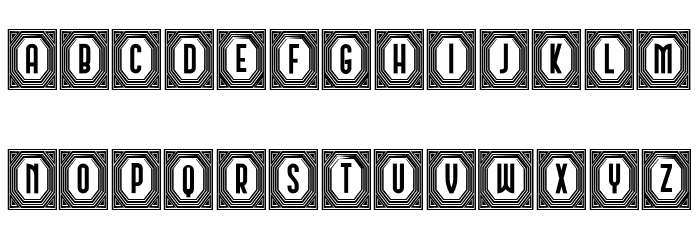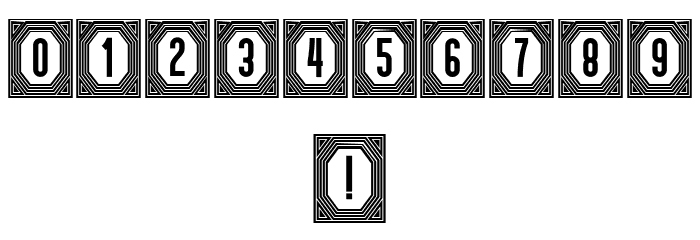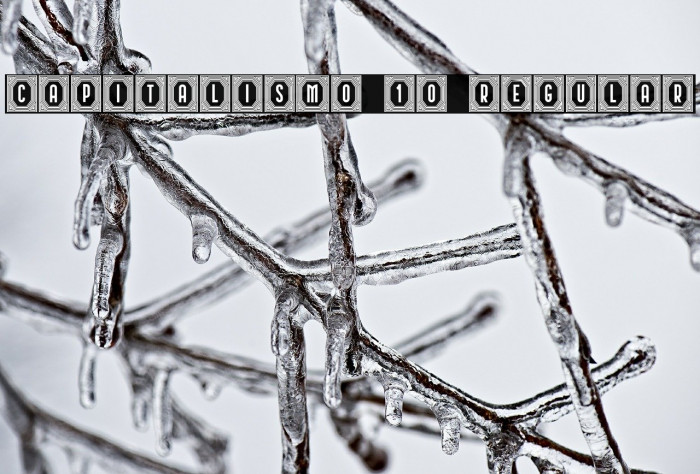
Capitalismo 10 Regular Font
This font features a bold, geometric design with each character enclosed within a decorative octagonal frame. The letters and numbers are presented in a blocky, sans-serif style, emphasizing a strong and modern aesthetic. The intricate border surrounding each character adds a layer of complexity and visual interest, making it suitable for eye-catching displays. The uniformity in character height and width contributes to a cohesive and structured appearance. The font's unique framing and bold letterforms make it ideal for projects that require a distinctive and memorable typographic presence.
A bold, geometric font with decorative octagonal frames around each character.
- Proposed Projects: Ideal for poster designs, album covers, branding materials, and any project requiring a striking visual impact.